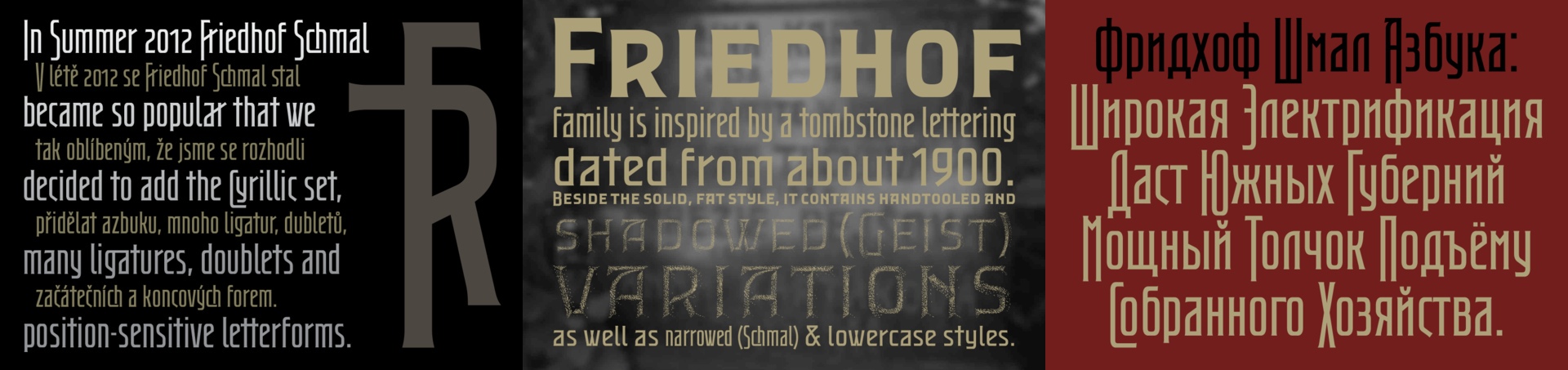
Friedhof Font
Friedhof Font is ideal for memorial service materials, commemorative publications, peaceful cemetery signage, remembrance ceremony programs, tribute presentations, bereavement communications, historical documentation projects, reflective meditation materials, solemn institutional communications, and respectful memorial designs.
What makes Friedhof Font so exciting is its profound embodiment of quiet dignity and peaceful remembrance that captures the solemn beauty of memorial spaces and the timeless importance of honoring those who have passed through respectfully crafted typography. This thoughtfully designed typeface features contemplative letterforms with memorial-inspired proportions and reverent character variations that immediately convey respect, tranquility, and the sacred nature of remembrance. The font's peaceful construction and memorial aesthetic create an instant sense of dignified reflection and respectful commemoration, making it ideal for projects that need to communicate peaceful remembrance, respectful honor, and the healing power of thoughtful memorial to audiences seeking meaningful ways to commemorate and remember loved ones.
The Friedhof Font family typically includes multiple contemplative weights and memorial styles, often featuring light, regular, and medium variations along with gently flowing italic versions. Memorial font collections frequently offer additional commemorative elements such as peaceful symbols, remembrance ornaments, and respectful decorations that enhance the dignified aesthetic and provide designers with comprehensive tools for creating genuinely respectful and emotionally appropriate memorial communications.
The memorial nature of Friedhof Font makes it particularly effective for targeting demographics that value respectful remembrance and peaceful commemoration in their memorial and spiritual practices. Funeral directors and bereavement counselors will find this font especially valuable for materials that must establish immediate respectful credibility and connect with audiences seeking authentic memorial experiences and meaningful remembrance support.
What sets Friedhof Font apart is its ability to convey profound respect while maintaining the gentle comfort necessary for effective memorial and bereavement communication. This balanced characteristic makes it suitable for both formal memorial service applications and intimate remembrance contexts where projecting dignified respect and maintaining emotional accessibility must work together harmoniously.
Professional designers recognize that Friedhof Font brings invaluable memorial credibility to projects across industries including funeral services, memorial organizations, bereavement support, and commemorative institutions. Its peaceful character and respectful appeal make it essential for organizations whose mission centers on honoring the departed, supporting grieving families, and creating meaningful connections between memory and healing in times of loss.
The thoughtfully crafted memorial authenticity of Friedhof Font ensures consistent respectful messaging across all remembrance-focused communication applications while honoring the fundamental importance of dignity and peace in memorial typography and commemorative design.